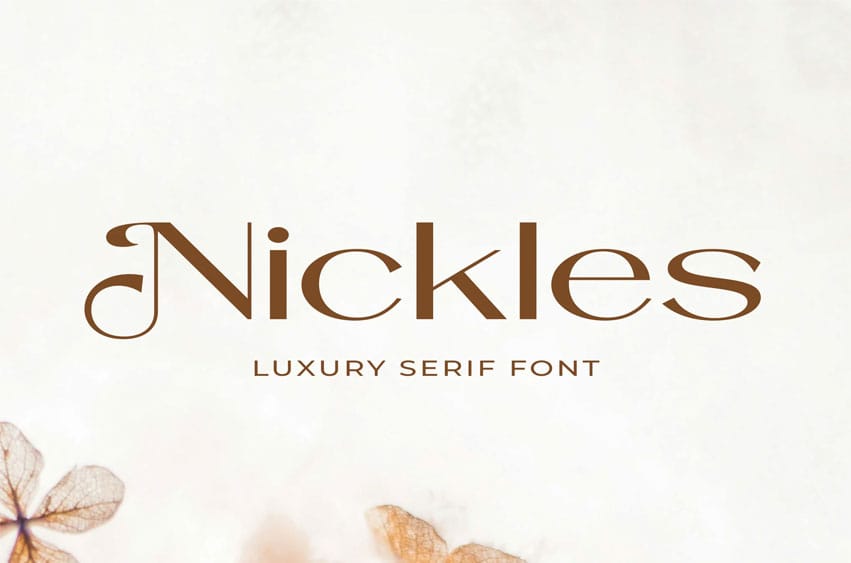
Nickles Font Luxury Sans-Serif Font – Nickles. This font is well-suited for a variety of contexts, such as print design, promotional materials, or magazine layouts.